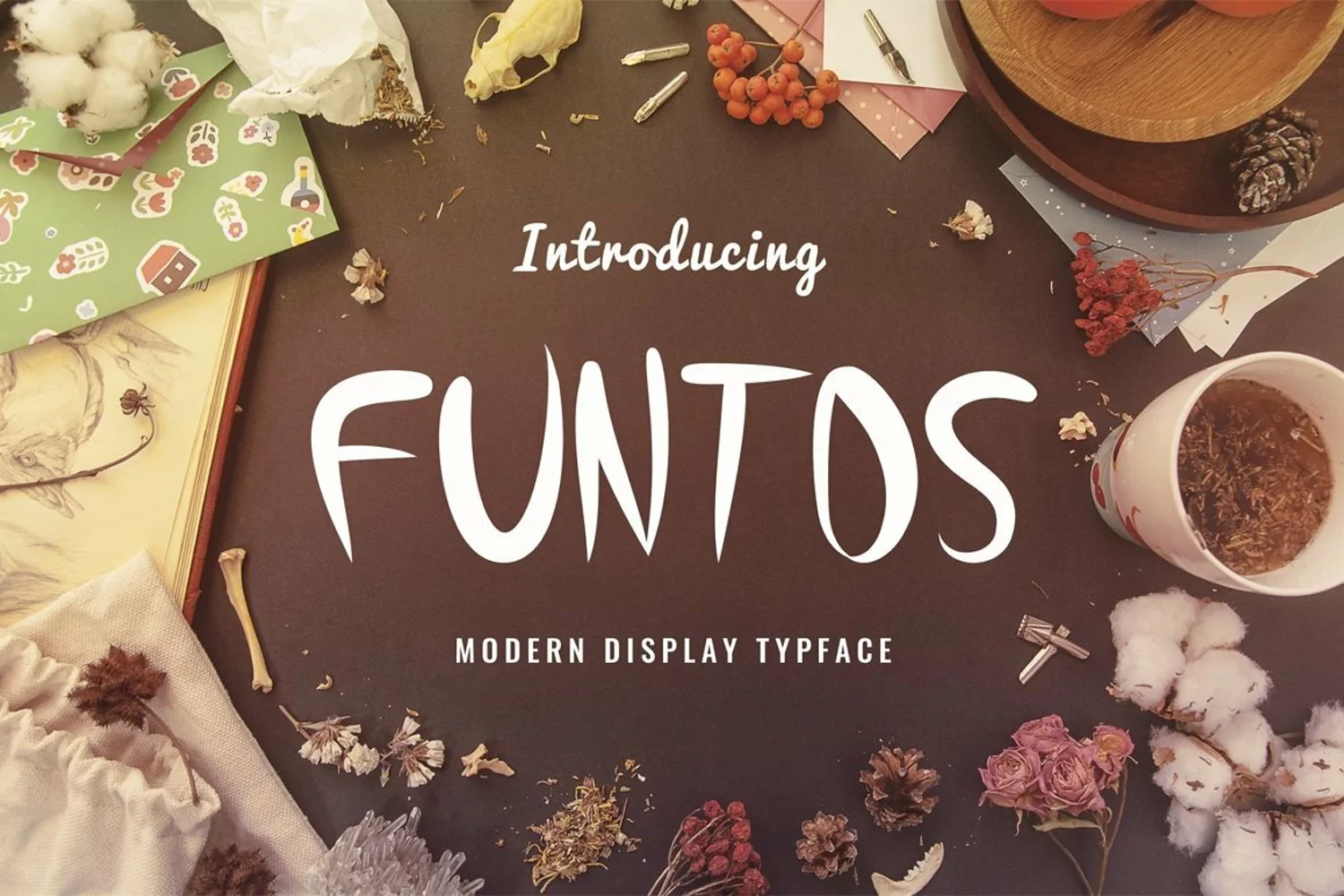
Funtos is modern display font. I try to make something like that with different feel so it look funny, cool and attractive. The font will be good for poster, clothing, and other design needs.